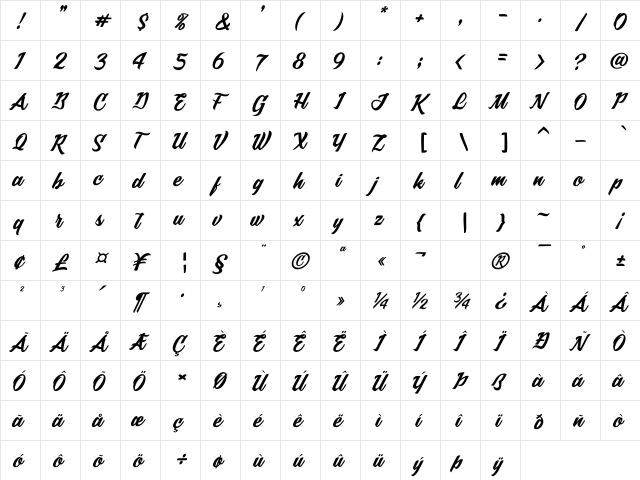
The Talkshow Regular
| Foundry | Grewfont Studio |
| Designer | Fajrin Ilhamy |
Design Context for The Talkshow Typeface
The Talkshow is a composed and adaptable typeface that performs quietly and consistently across a wide range of design contexts.